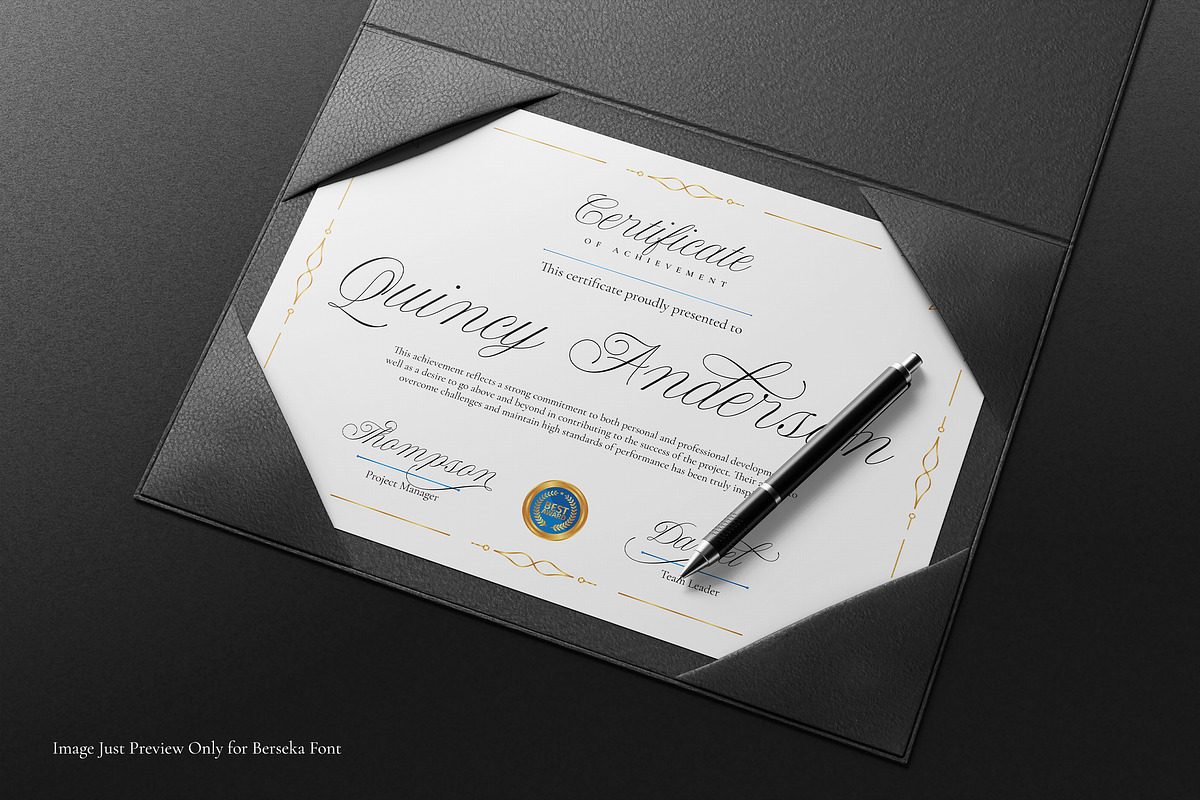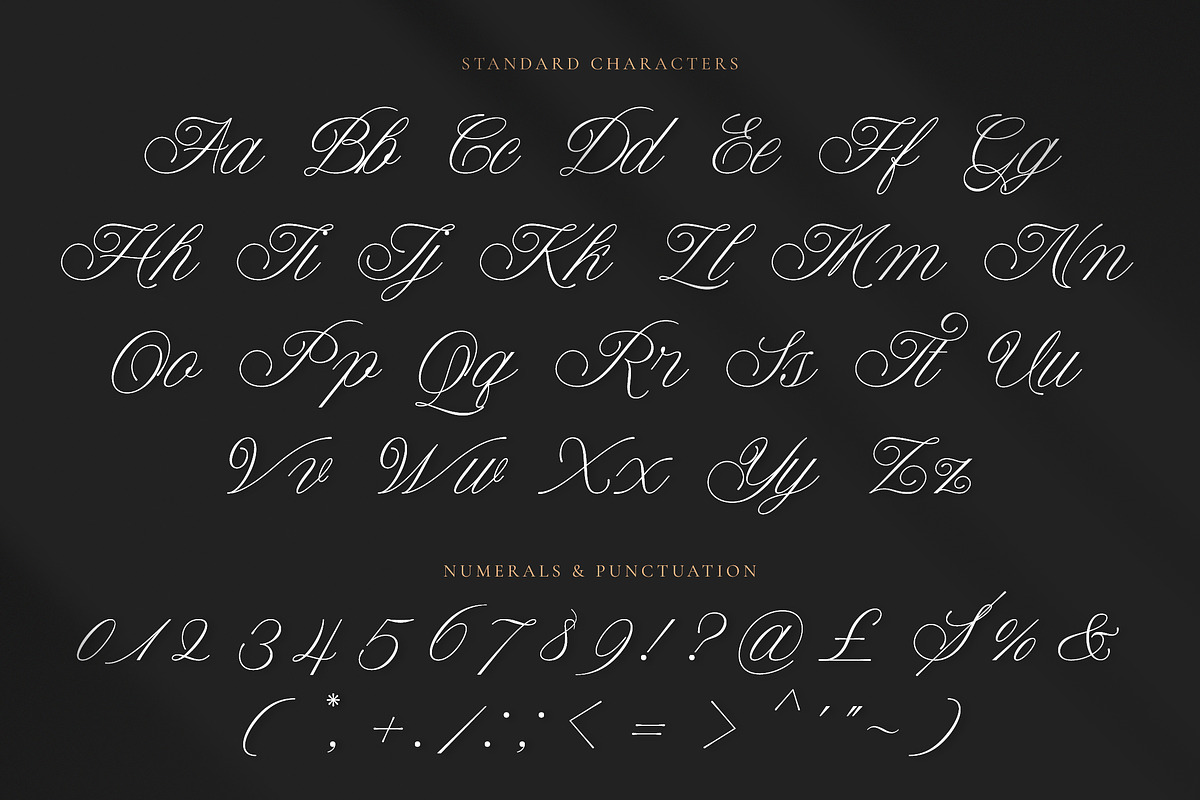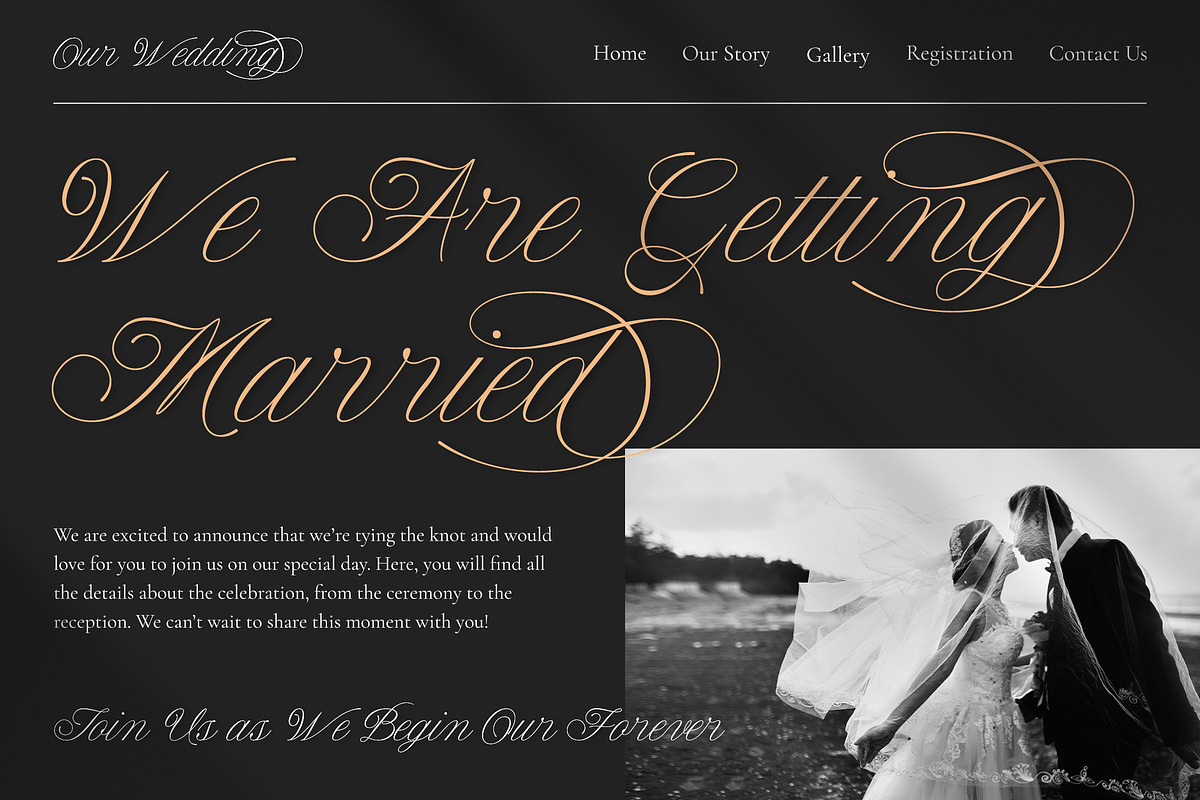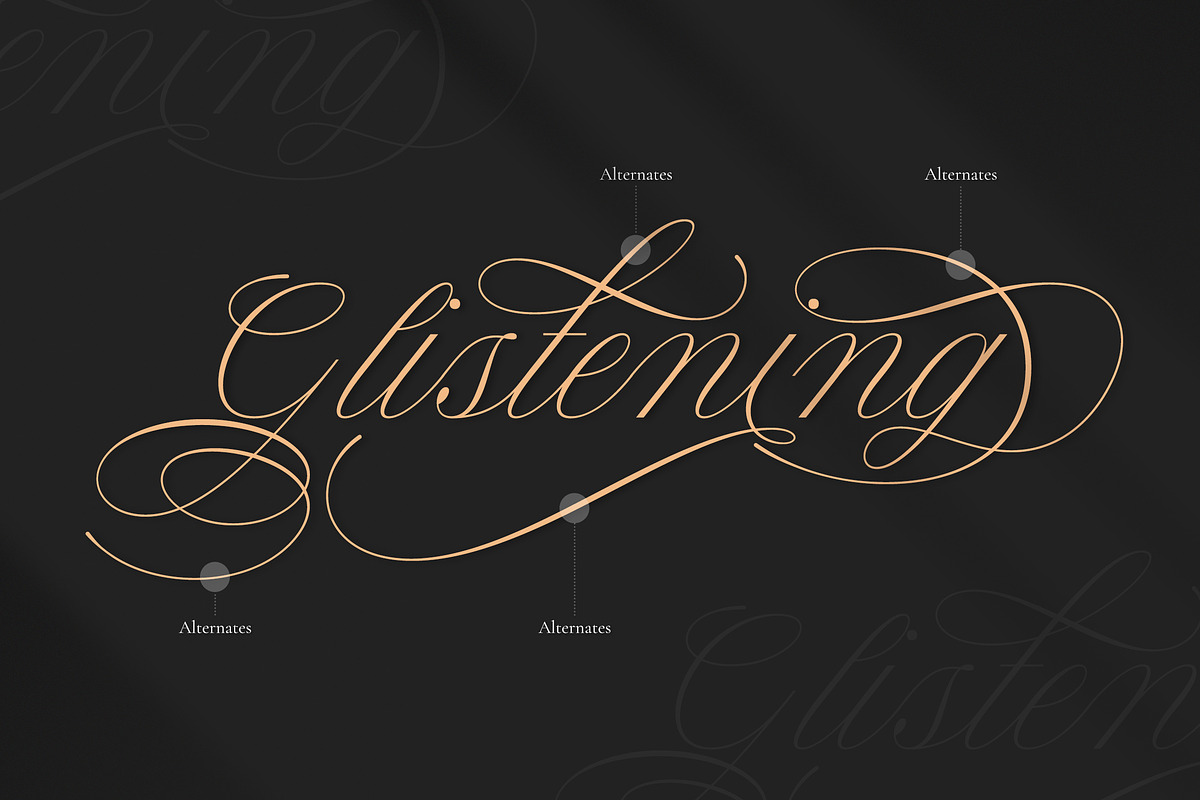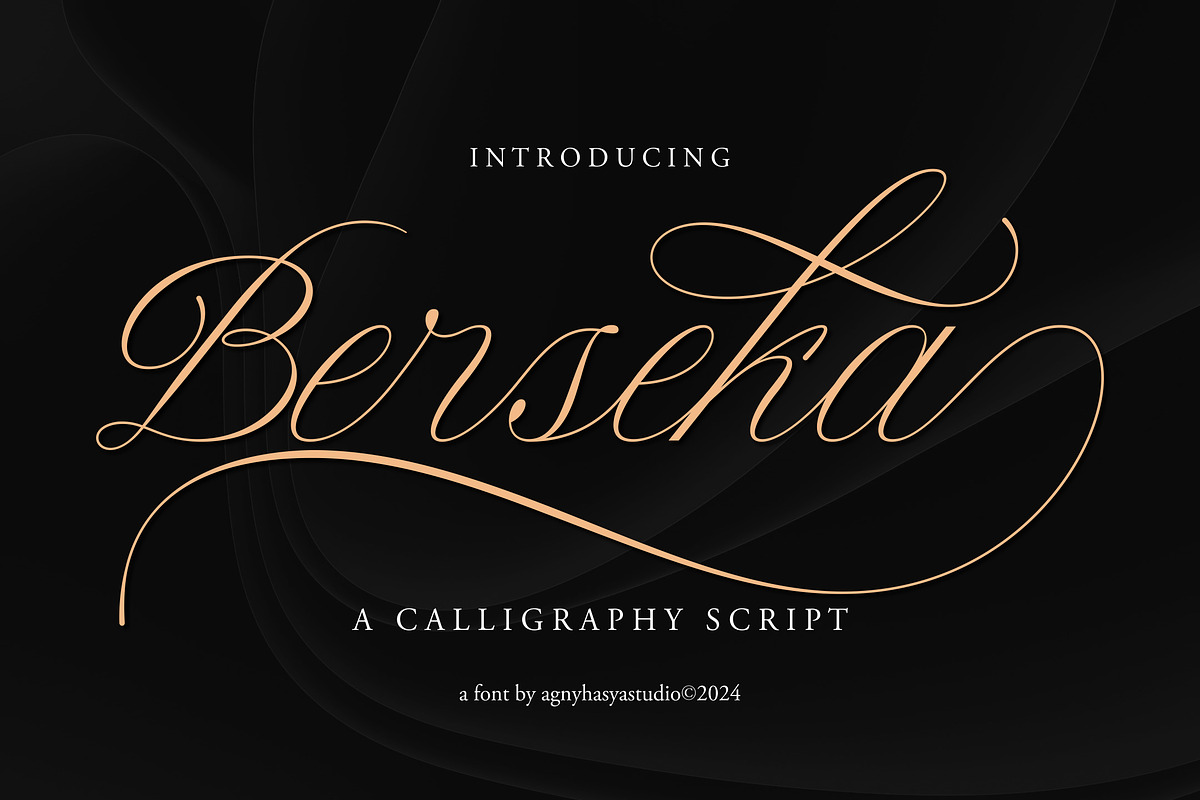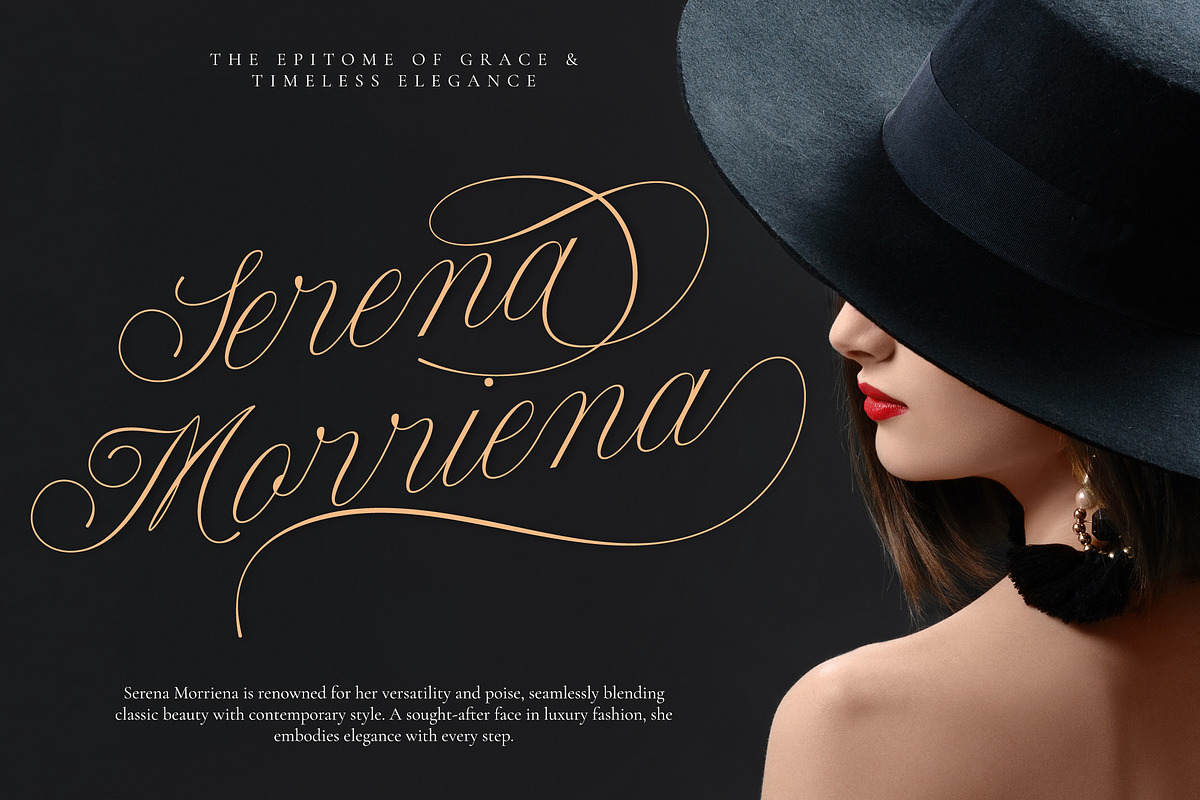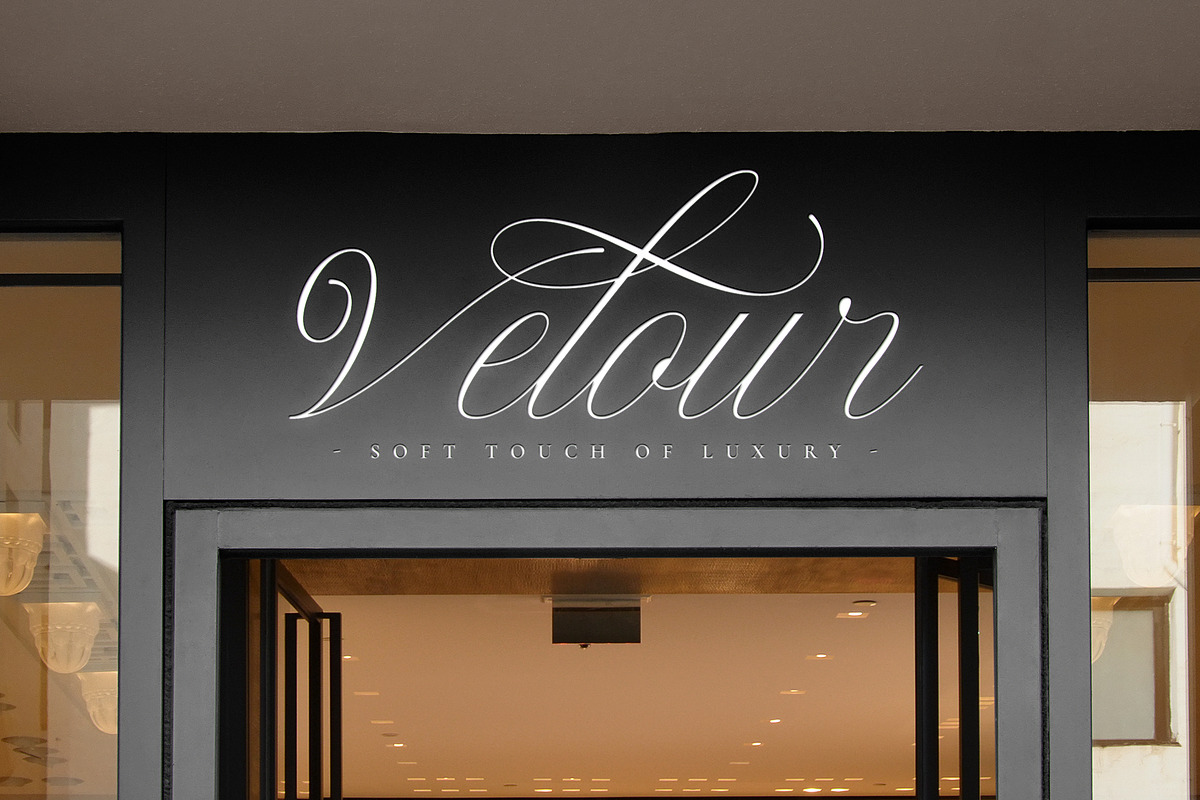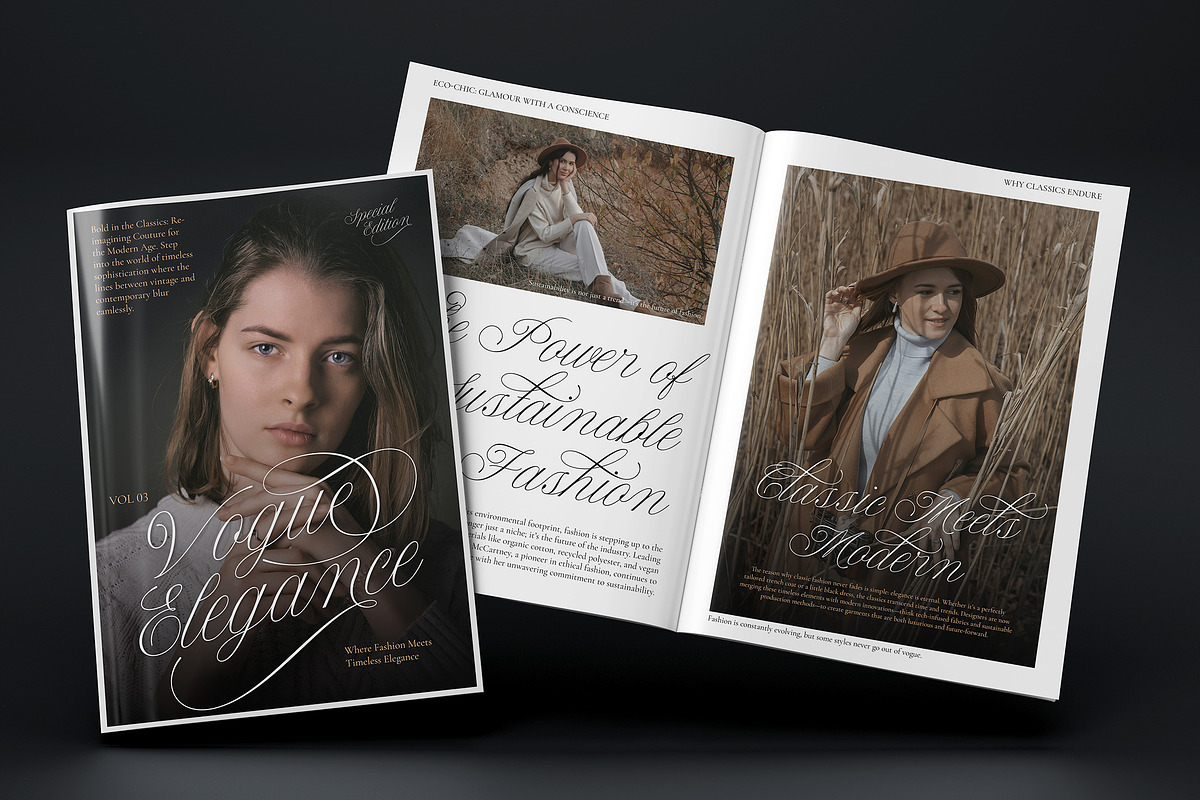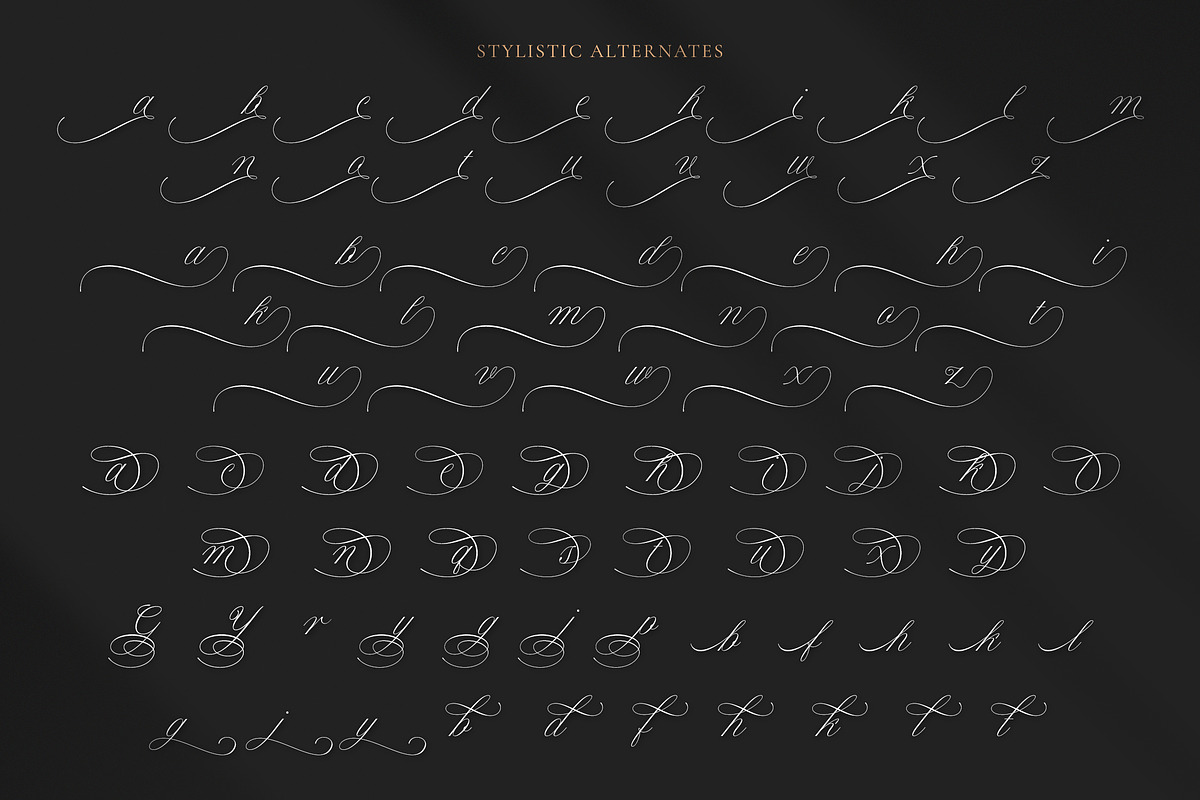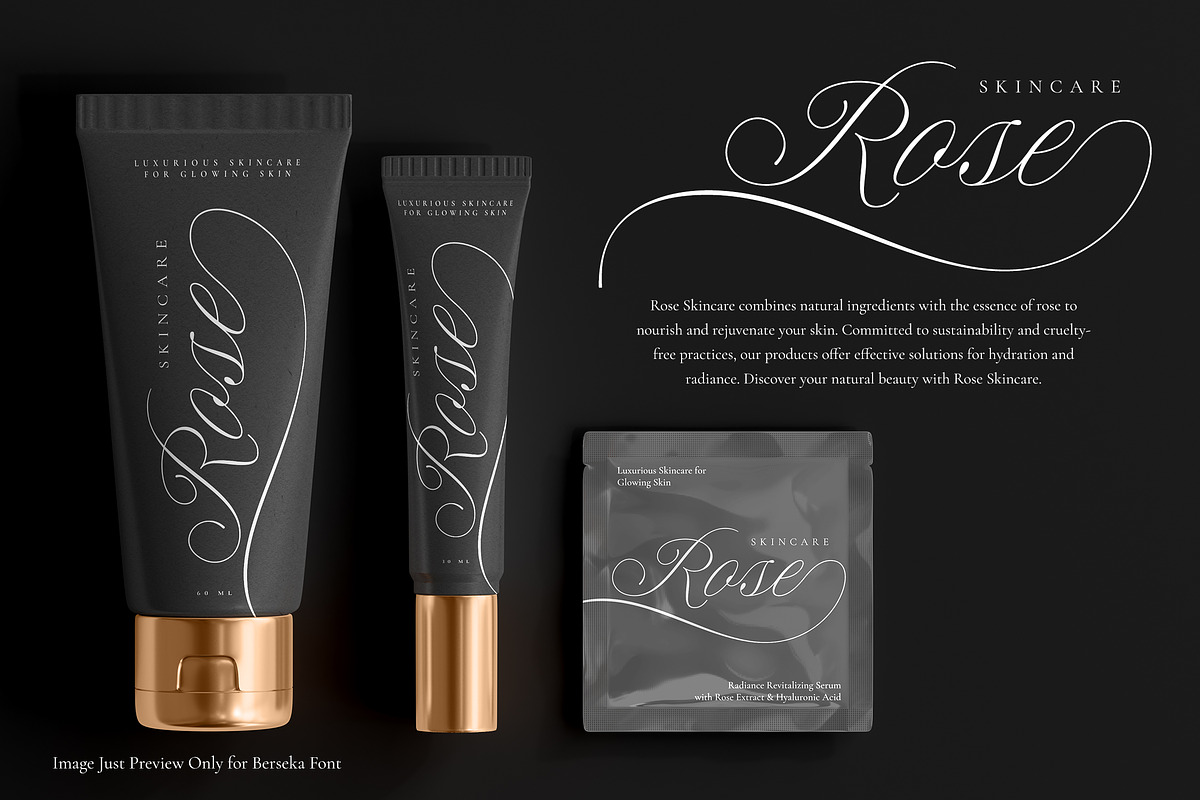
Berseka - Calligraphy Script
Berseka is a refined calligraphy script font that embodies timeless elegance and luxury. It is a classic masterpiece inspired by traditional handwriting and italic scripts.
With stylistic alternates as key features, this sophisticated typeface allows you to unlock the treasures of OpenType capabilities. This exquisitely desirable calligraphy script elevates your creative intelligence, enabling you to design elegant typography.
Berseka is perfect for various designs including logos, branding, business cards, certificates, magazine layouts, book covers, artistic quotes, and beauty and fashion designs become a class apart. Moreover, it adds a distinctive formal elegance to your wedding media, and any special event desiring the charm of classic luxury. Experience the magic of Berseka today! Thank you!